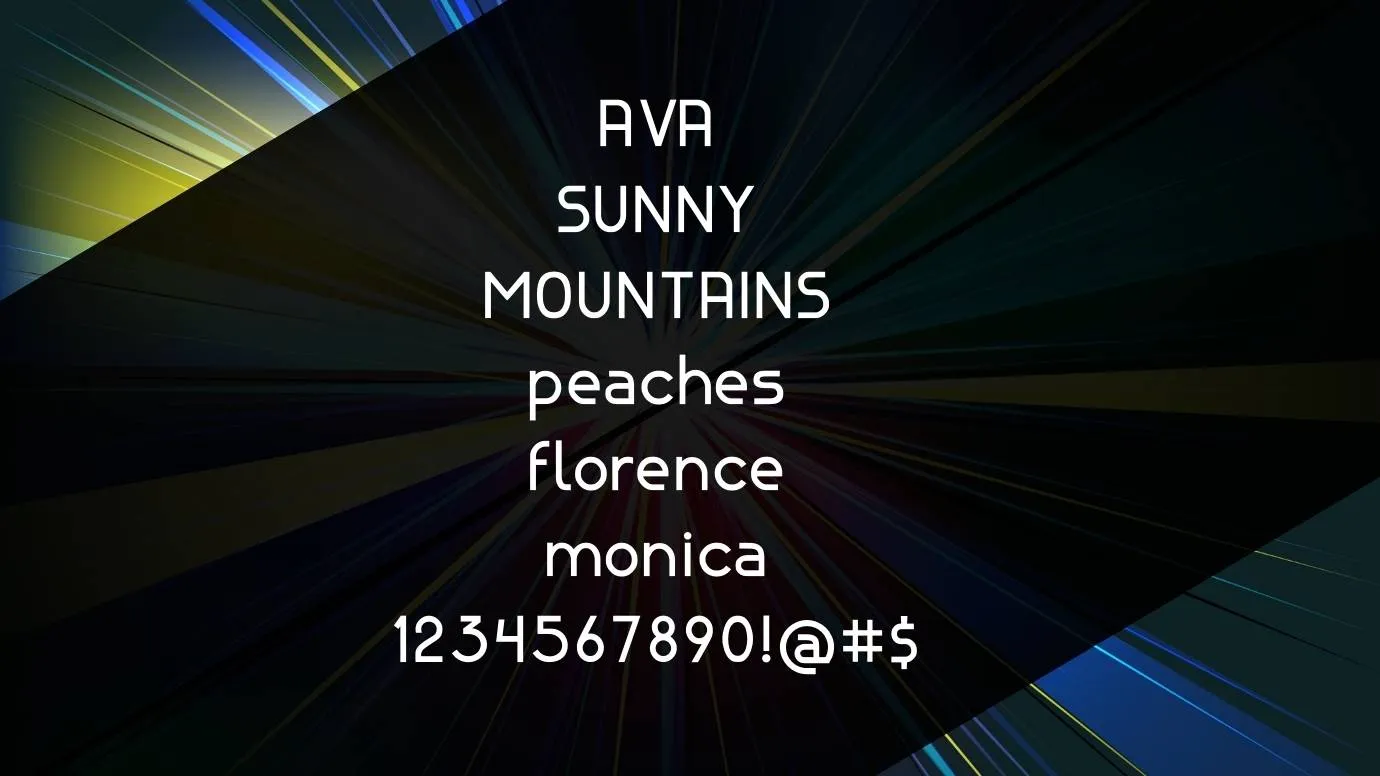
Canela Font is a sans serif typeface with a unique twist. Its tall x-height and wide-open apertures give it a light, airy feel that makes it perfect for headlines and other display use. But its unusual letterforms also make it very readable at smaller sizes, making it an ideal all-purpose typeface.
Canela typeface is available in different styles, weights, and widths, so you can find the perfect match for your project. And because it’s a sans serif, it will pair well with almost any other typeface.
Canela typeface has a complete set of characters including upper and lower case alphabets, digits, and special characters with support for most Latin-based languages, as well as Cyrillic and Greek. And because it’s a sans serif, it will pair well with almost any other typeface.
Designer of Canela Font
This simple and astonishing typeface is designed by a Mexico-based typeface designer Miguel Reyes for the foundry Fontaste in 2015.
This font style is designed with a unique and consistent style. This single attractive style is a mixture of various characteristics, containing upper- and lower-case letters, numbers, punctuations, symbols, special characters, glyphs, and multiple language support.
View of Canela Font
| Name | Canela Font |
| Designer | Miguel Reyes |
| Foundry | Fontaste |
Is Canela Font Fancy font?
Canela typeface is not a fancy font. It is a sans serif typeface with a unique twist. Its tall x-height and wide-open apertures give it a light, airy feel that makes it perfect for headlines and other display use.
Is Canela typeface good for titles?
Yes, the Canela typeface is a good choice for titles because of its tall x-height and wide-open apertures.
Who owns the Canela typeface?
The Canela typeface is owned by Fontaste Foundry.